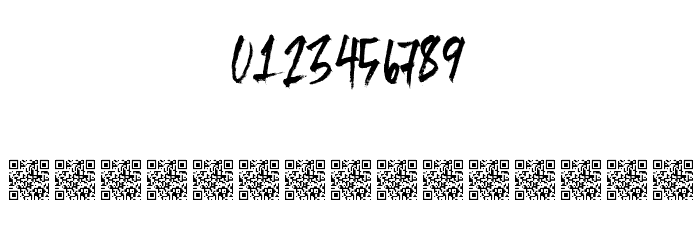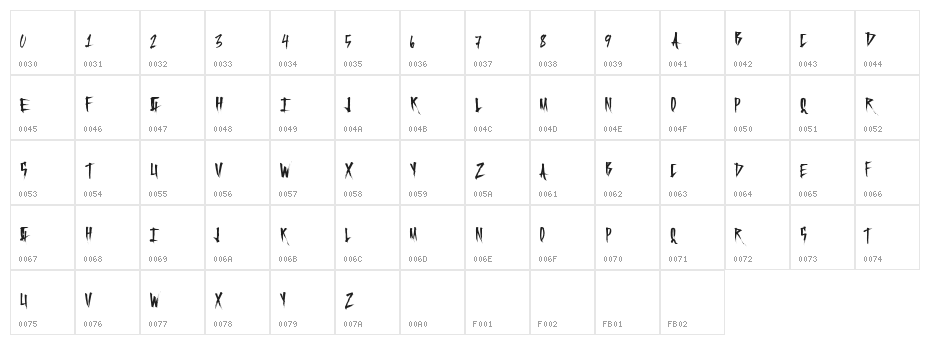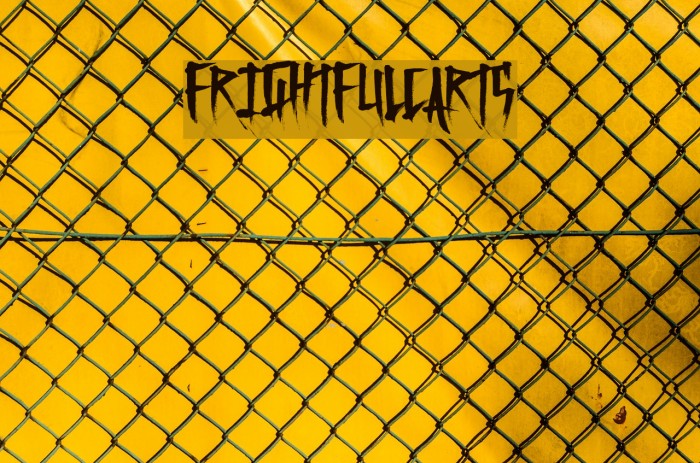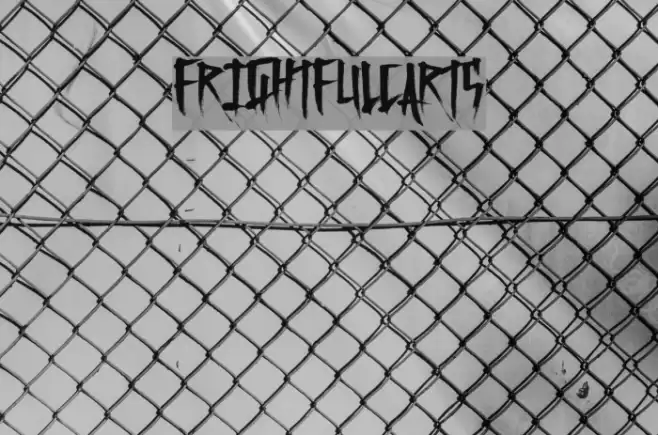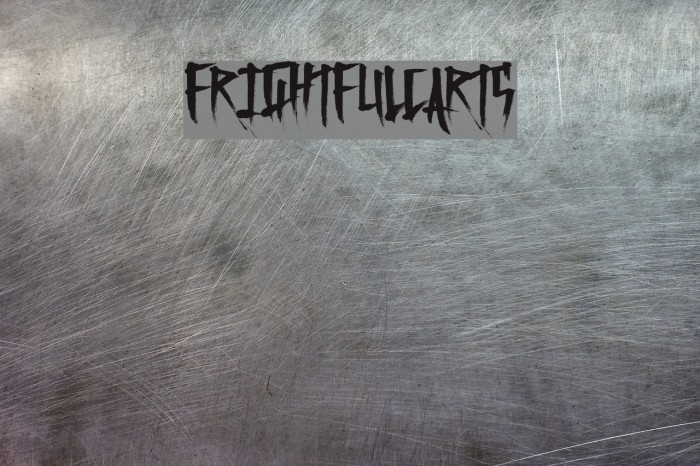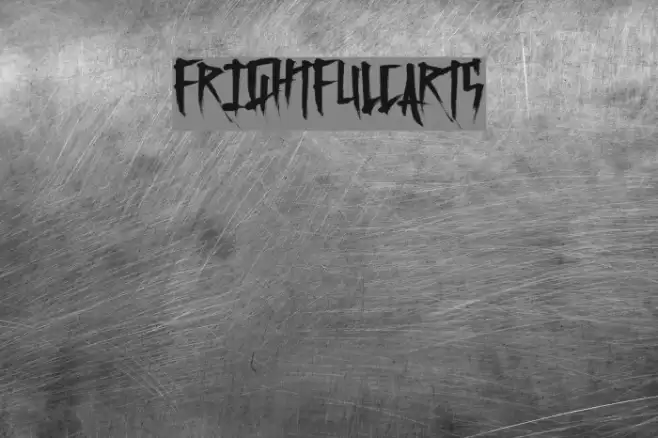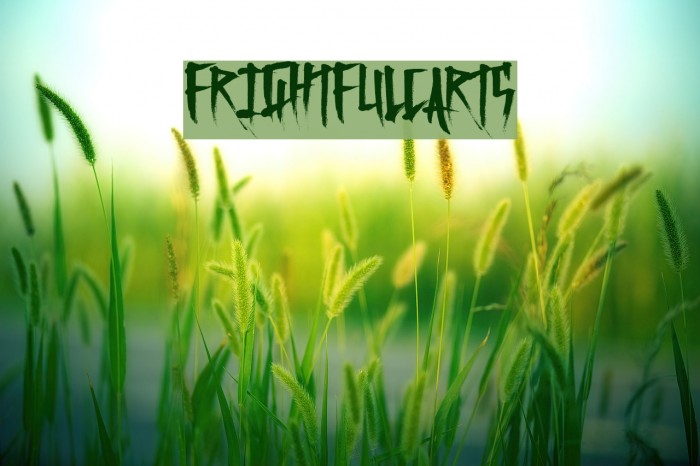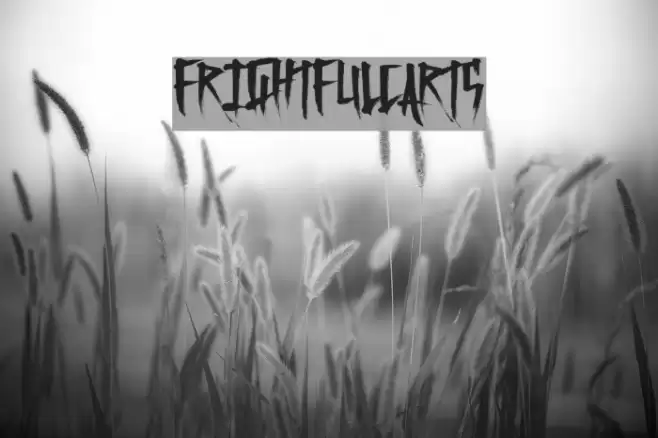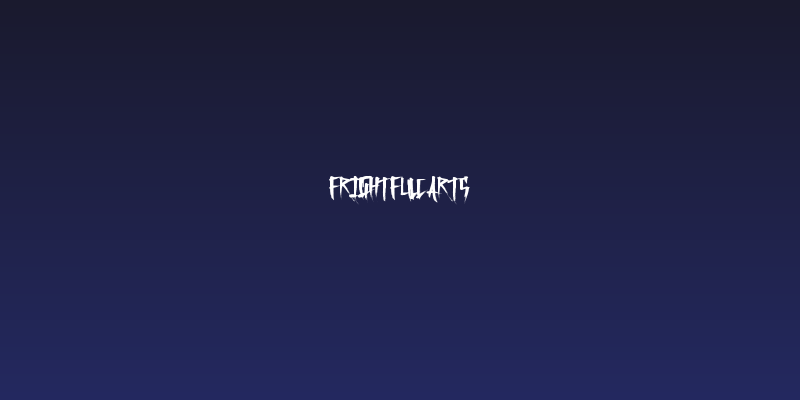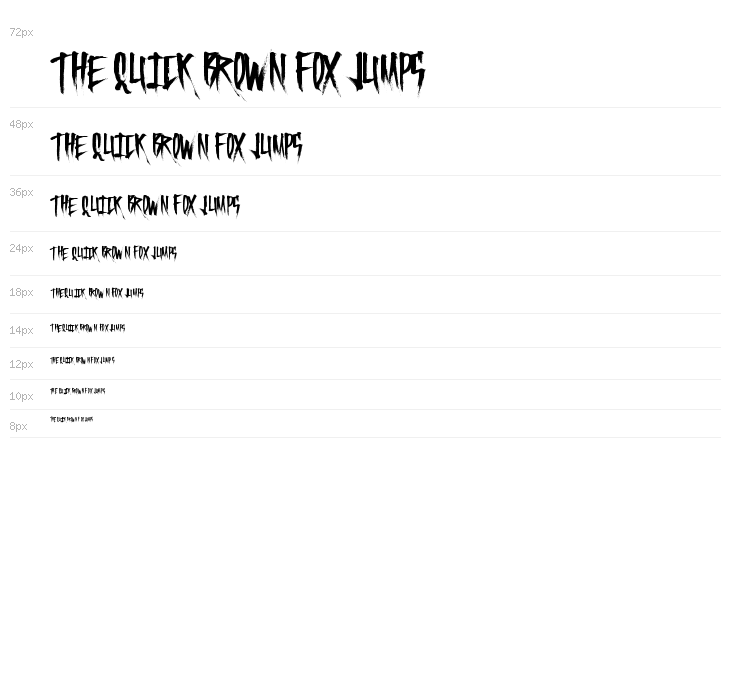
FrightfulCarts Font
FrightfulCarts Description
This font features a bold and aggressive style, characterized by sharp, jagged edges and a distressed appearance. The letters are designed to look as if they have been scratched or clawed, giving them a raw and edgy feel. The uppercase and lowercase letters maintain a consistent theme, with each character exhibiting a unique, hand-drawn quality. The numbers and special characters follow the same aesthetic, ensuring a cohesive look across all elements. This font is ideal for projects that require a dramatic and impactful visual presence.
| Proposed Projects | Ideal for horror-themed designs, album covers, posters, and video game graphics. |